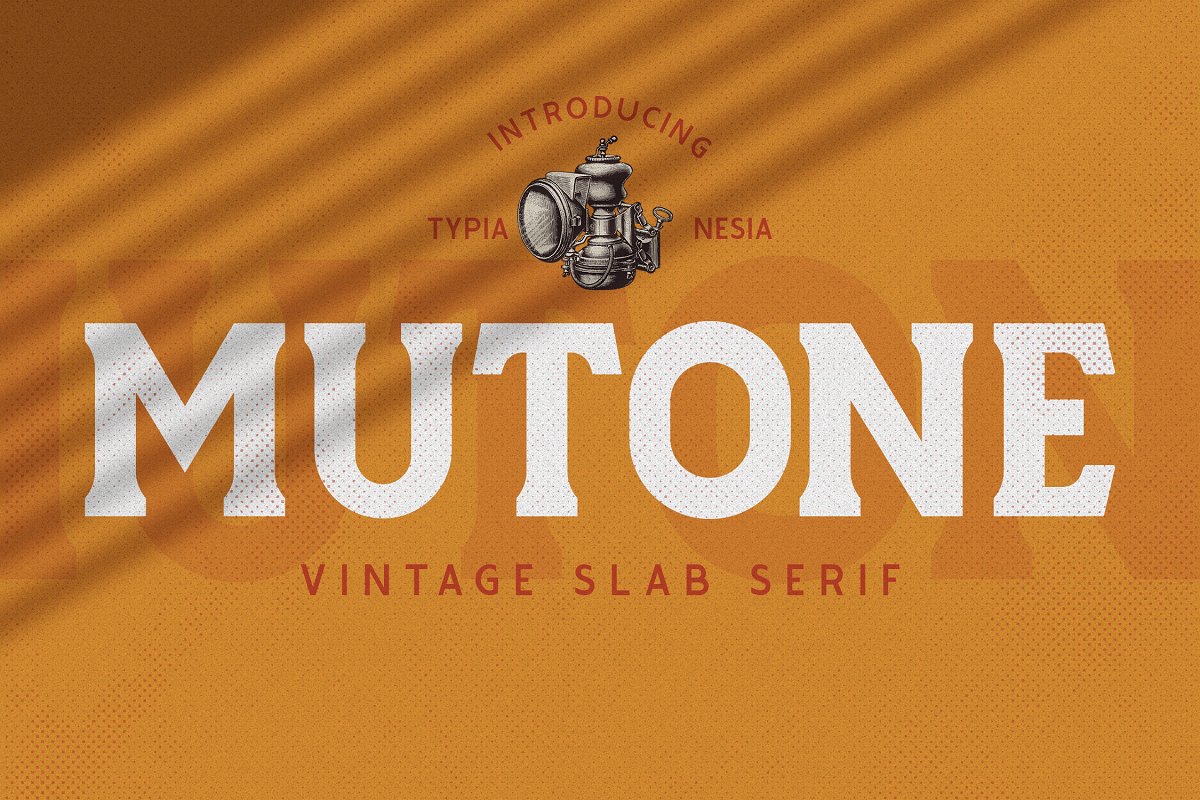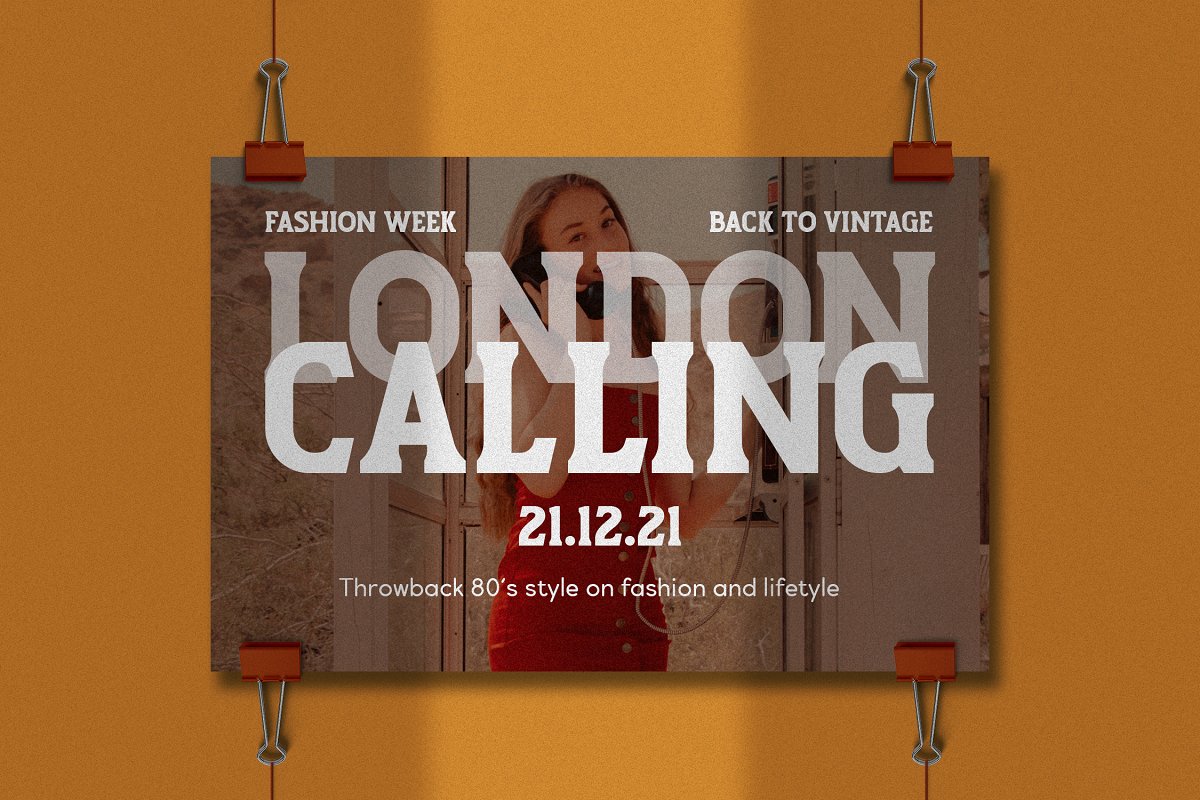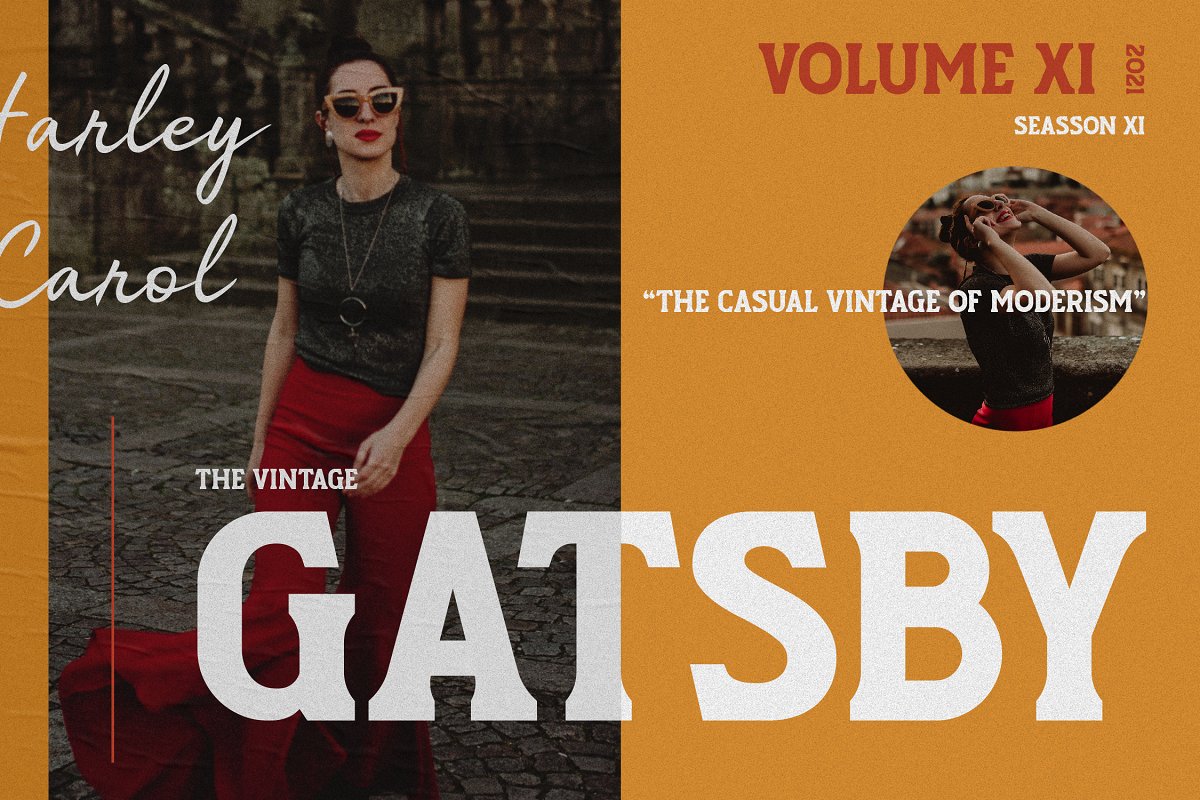
About the Mutone Vintage Slab Serif Font
Mutone – Retro Classic Vintage Slab Serif Font, Mutone Slab Serif font is perfect for your up coming projects, Such as logo branding, adventure, jungle / wild, custom motorcycle / car, vintage industrial, editorial design, stationery design, blog design, modern advertising design, card invitation, art quote, home decor, book/cover title, special events, classic automotive and any hand lettering classic / vintage typography design projects